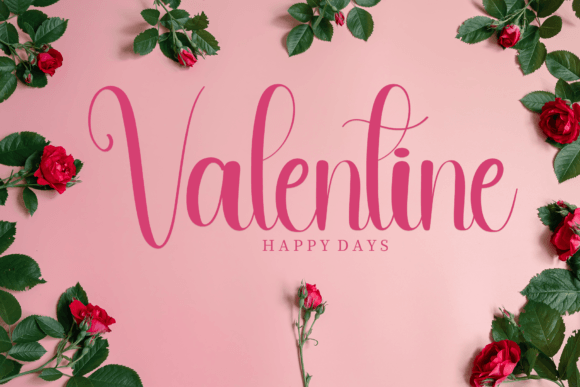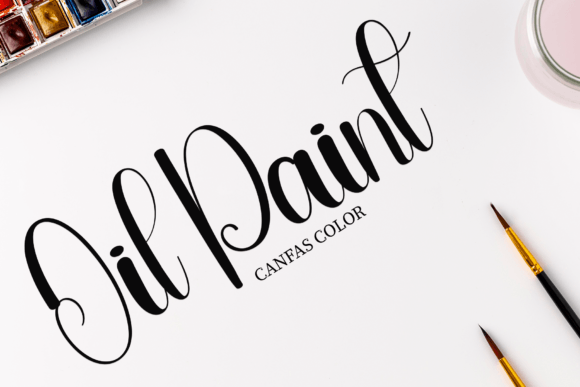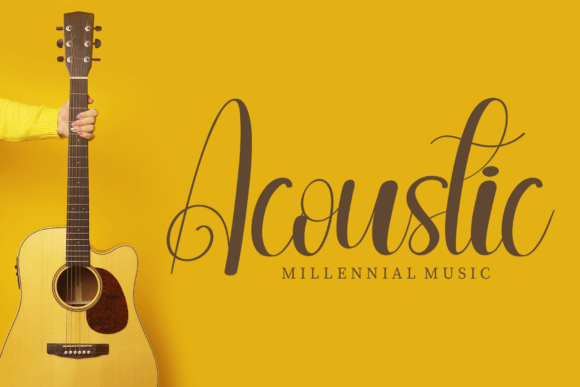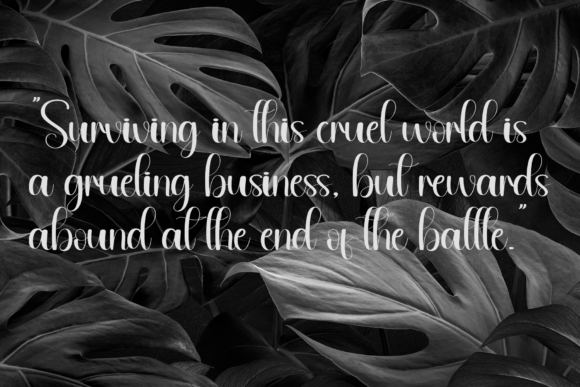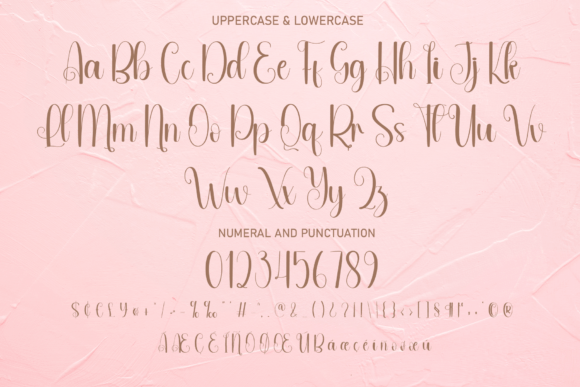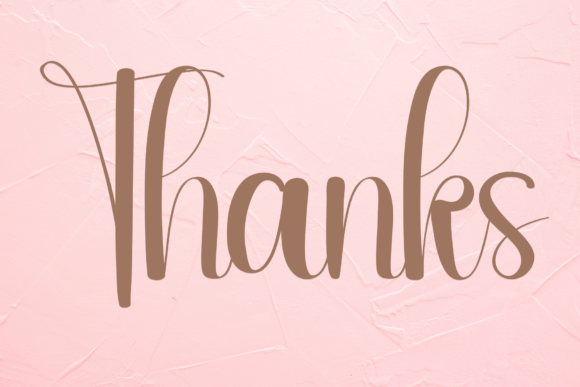
Introducing Berlina Font: The Sweet and Friendly Handwritten Font for Your Creative Projects
Are you looking for a font that can add a touch of sweetness and friendliness to your designs? Look no further than Berlina Font! This beautiful handwritten font is perfect for creating wedding invitations, cards, and other designs that require a fun and playful touch. In this article, we’ll take a closer look at Berlina Font, its features, and how you can use it to elevate your creative projects.
What is Berlina Font?
Berlina Font is a modern handwritten font that exudes a sense of freshness and neatness. Its sweet and friendly appearance makes it perfect for a wide range of design applications, from wedding invitations and cards to social media graphics and branding materials. The font’s unique and elegant style is sure to capture the attention of your audience and leave a lasting impression.
Key Features of Berlina Font
- Sweet and Friendly Appearance: Berlina Font has a warm and inviting appearance that makes it perfect for designs that require a personal touch.
- Fresh and Neat: The font’s clean and modern design ensures that your text is easy to read and understand.
- Handwritten Style: Berlina Font has a beautiful handwritten style that adds a touch of elegance and sophistication to your designs.
- Versatile: The font is suitable for a wide range of design applications, from wedding invitations and cards to social media graphics and branding materials.
How to Use Berlina Font in Your Designs
Berlina Font is easy to use and can be incorporated into your designs in a variety of ways. Here are a few ideas to get you started:
- Wedding Invitations: Use Berlina Font to create beautiful and elegant wedding invitations that set the tone for your special day.
- Cards: Add a personal touch to your cards with Berlina Font, perfect for birthdays, anniversaries, and other special occasions.
- Social Media Graphics: Use Berlina Font to create eye-catching social media graphics that showcase your brand’s personality and style.
- Branding Materials: Incorporate Berlina Font into your branding materials, such as business cards, brochures, and letterheads, to add a touch of elegance and sophistication.
Tips for Getting the Most Out of Berlina Font
Here are a few tips to help you get the most out of Berlina Font:
- Pair with Other Fonts: Experiment with pairing Berlina Font with other fonts to create a unique and visually appealing combination.
- Use Different Colors: Try using different colors to add contrast and visual interest to your designs.
- Experiment with Sizes: Play around with different font sizes to create a hierarchy of text and add emphasis to important information.
Berlina Font is a beautiful and versatile handwritten font that is perfect for adding a touch of sweetness and friendliness to your designs. With its fresh and neat appearance, it’s ideal for a wide range of design applications, from wedding invitations and cards to social media graphics and branding materials. Whether you’re a designer or crafter, Berlina Font is sure to become a valuable addition to your font collection.